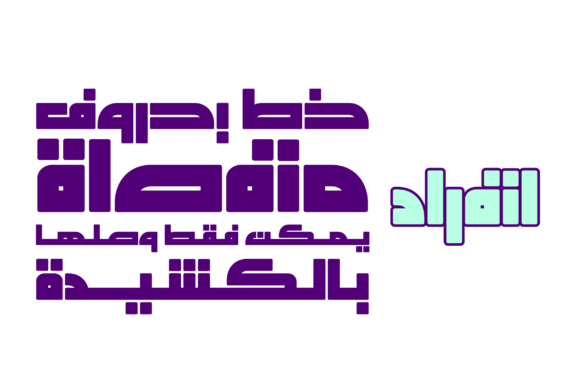
**Introducing Enferad: A Bold and Geometric Arabic Font**
In the realm of typography, where letters dance and words come alive, there lies a font that captivates the senses and ignites the imagination - Enferad, the Arabic font that redefines the art of expression.
**A Journey Through Centuries of Heritage**
Enferad is a non-cursive Arabic font, a testament to the rich cultural heritage of the Middle East. Its roots lie deep within the sands of time, echoing the echoes of ancient poetry and the wisdom of ancient scholars. With each stroke and curve, Enferad pays homage to the beauty and elegance of the Arabic language.
**A Font of Strength and Character**
Crafted with precision, Enferad exudes an aura of strength and confidence. Its bold lines and geometric structure create a visual impact that commands attention. Whether gracing the pages of a book or adorning the screens of a website, Enferad leaves an indelible mark, etching itself into the memory of the beholder.
**A Versatile Gem for Designers**
Enferad is a versatile font, a chameleon that adapts seamlessly to a myriad of design projects. Its versatility knows no bounds, from the dynamic world of web design to the captivating realm of advertising, from the creative realm of titling to the boundless possibilities of branding. Enferad becomes an extension of the designer's imagination, a tool that breathes life into their creative visions.
**Designed for the Digital Age**
In the era of digital communication, Enferad shines brightly. Its clean lines and smooth, rounded edges render beautifully on screens, ensuring clarity and legibility even at smaller sizes. Whether viewed on a smartphone, tablet, or desktop, Enferad delivers an exceptional user experience, enhancing the impact of words and captivating audiences.
**A Touch of Elegance for Any Project**
With Enferad, every project takes on an air of sophistication and charm. Its geometric structure lends a modern touch, while its smooth curves evoke a sense of timelessness. Whether crafting a logo that demands attention or designing a website that exudes professionalism, Enferad elevates the ordinary to the extraordinary, transforming the mundane into the magnificent.
**Experience the Beauty of Arabic Typography**
To fully appreciate the allure of Enferad, one must immerse themselves in the beauty of Arabic typography. The intricate ligatures, the expressive diacritics, and the harmonious flow of letters create a visual symphony that captivates the eyes and stirs the emotions. With Enferad, words become more than mere symbols; they become vessels of meaning, conveying messages with depth and resonance.
**A Font Like No Other**
Enferad stands apart from the crowd, a font that defies conventions and sets new standards. Its unique character and undeniable charm make it a favorite among designers and typography enthusiasts alike. Whether you're a seasoned professional or just starting your design journey, Enferad is the perfect companion, guiding you towards creative excellence.